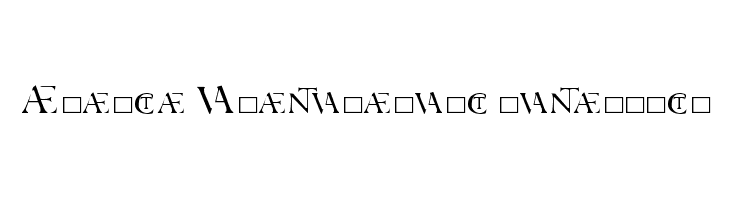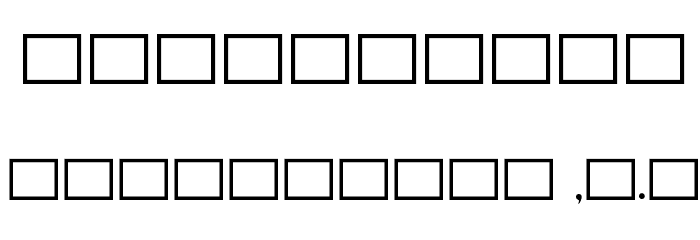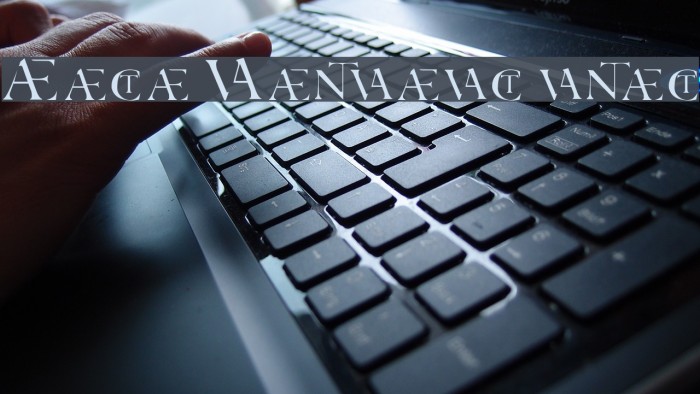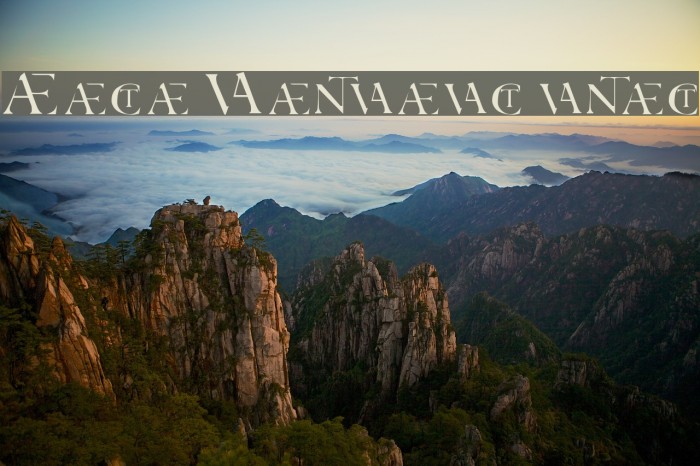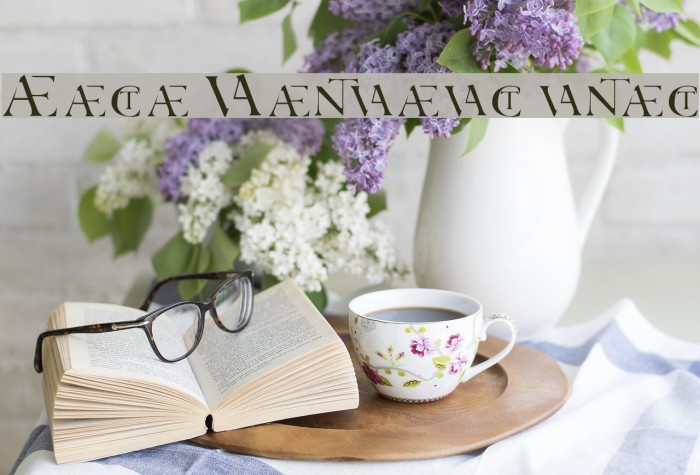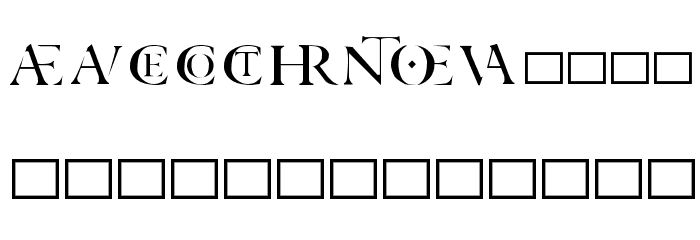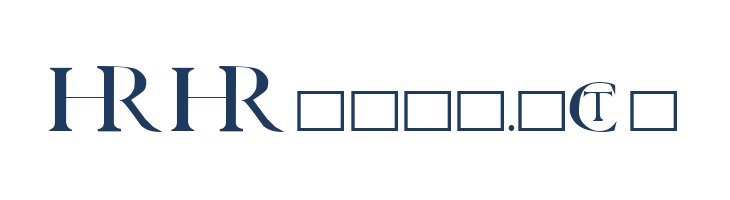
Aranea Imaginative Ligatures Font
This font features a highly imaginative and decorative style, characterized by its unique ligatures and artistic flair. The letters are crafted with intricate details, incorporating curves and sharp angles that create a sense of movement and elegance. The design is bold and striking, making it ideal for creative projects that require a touch of sophistication and originality. Its artistic nature lends itself well to projects that aim to stand out and make a statement.
| Use Case | Logos, Posters, Artistic projects |
| Proposed Projects | Ideal for branding, logos, posters, and artistic projects that require a distinctive and creative touch. |